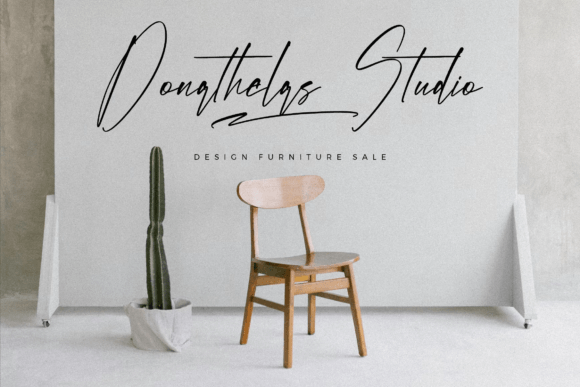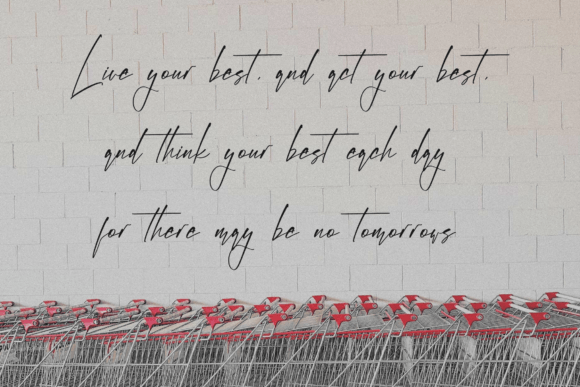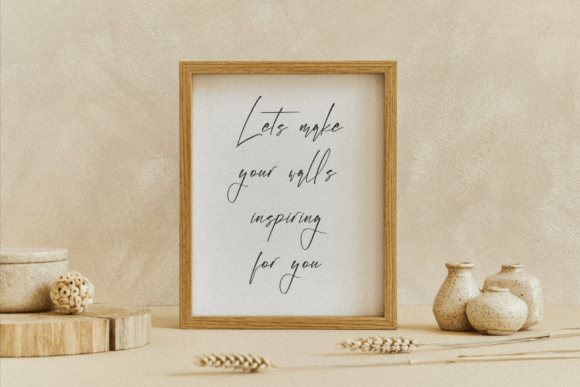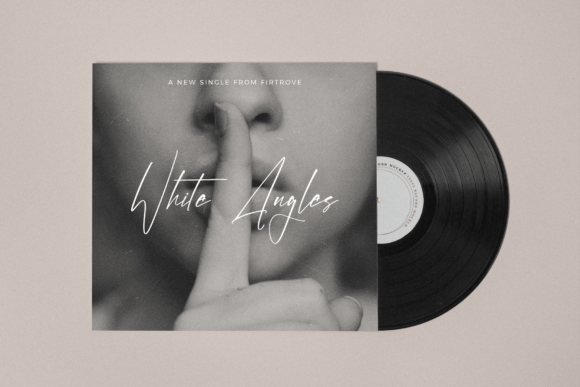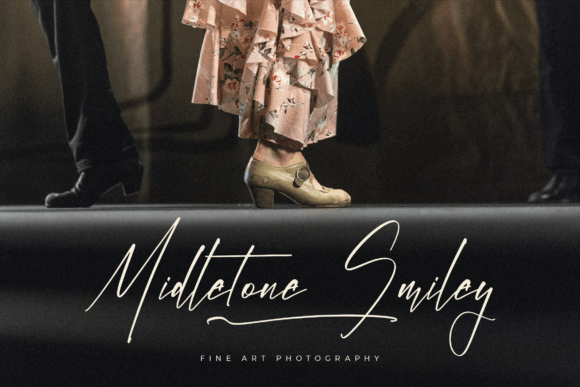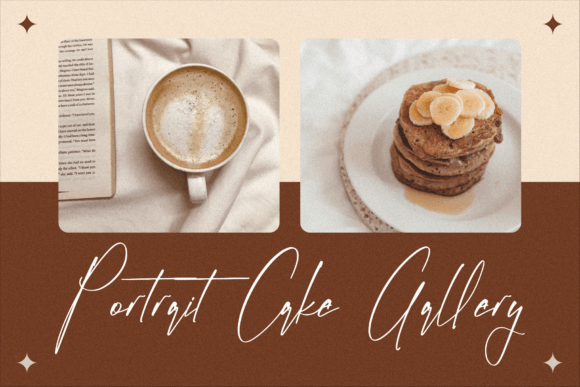
Introducing Amolqittan Font: Elevate Your Designs with Modern Script Elegance
In the world of design, fonts play a pivotal role in conveying messages, evoking emotions, and creating lasting impressions. For designers, crafters, and creators seeking a modern script font that exudes elegance and versatility, Amolqittan Font emerges as an exceptional choice. Crafted by Letterfabric Studio, Amolqittan is not just a font; it’s a design element that can transform your projects, making them stand out with a unique and sophisticated appeal.
What is Amolqittan Font?
Amolqittan Font is a modern script font that embodies the perfect blend of contemporary style and classic elegance. Its fluid strokes and graceful curves make it an ideal choice for a wide array of design projects. Whether you’re working on logos, branding projects, homeware designs, product packaging, or any other creative endeavor that requires a touch of sophistication, Amolqittan is designed to meet your needs.
One of the standout features of Amolqittan Font is its incredible versatility. It’s suitable for a myriad of projects, including:
- Logos and Branding Projects: Create memorable brand identities with a font that communicates elegance and modernity.
- Homeware Designs: Add a touch of sophistication to your home decor designs, making them truly unique.
- Product Packaging: Elevate your product packaging with a font that stands out on store shelves.
- Mugs, Quotes, Posters, and More: From mugs and quotes to posters and shopping bags, Amolqittan can add a beautiful script taste to various print materials.
- T-Shirts and Apparel: Design stunning apparel with a font that’s both stylish and comfortable to read.
- Book Covers, Name Cards, Invitation Cards, and Greeting Cards: Make your book covers, name cards, invitation cards, and greeting cards more appealing with Amolqittan’s elegant script.
- Labels and Photography: Use Amolqittan for labels and as a watermark in your photography to add an extra layer of style.
- Special Events: Make your special events unforgettable with custom designs featuring Amolqittan Font.
Why Choose Amolqittan Font?
Choosing Amolqittan Font for your design projects comes with numerous benefits:
- Elegant and Modern: Amolqittan brings a modern script elegance that can make your designs look sophisticated and current.
- Highly Versatile: Its adaptability across various projects makes it a valuable addition to your font library.
- Easy to Read: Despite its elegant and cursive nature, Amolqittan remains easy to read, making it functional for a wide range of applications.
- Customizable: With Amolqittan, you have the flexibility to adjust and customize the font to fit your project’s specific needs.
Amolqittan Font by Letterfabric Studio is a remarkable addition to the world of modern script fonts. Its elegance, versatility, and readability make it an invaluable resource for designers and crafters looking to elevate their projects. Whether you’re aiming to create stunning logos, captivating posters, or memorable brand identities, Amolqittan Font is poised to become your go-to choice. Embrace the beauty of Amolqittan in your designs and witness how a simple font can transform your creative projects into masterpieces of modern elegance.